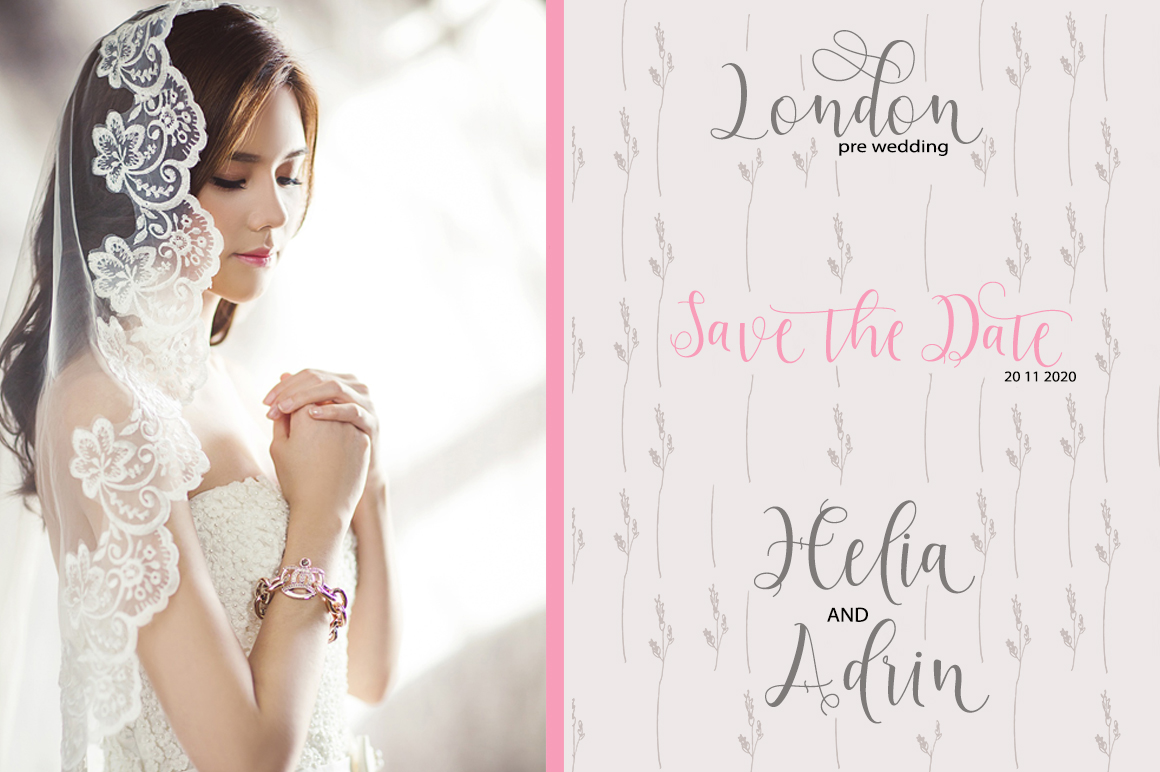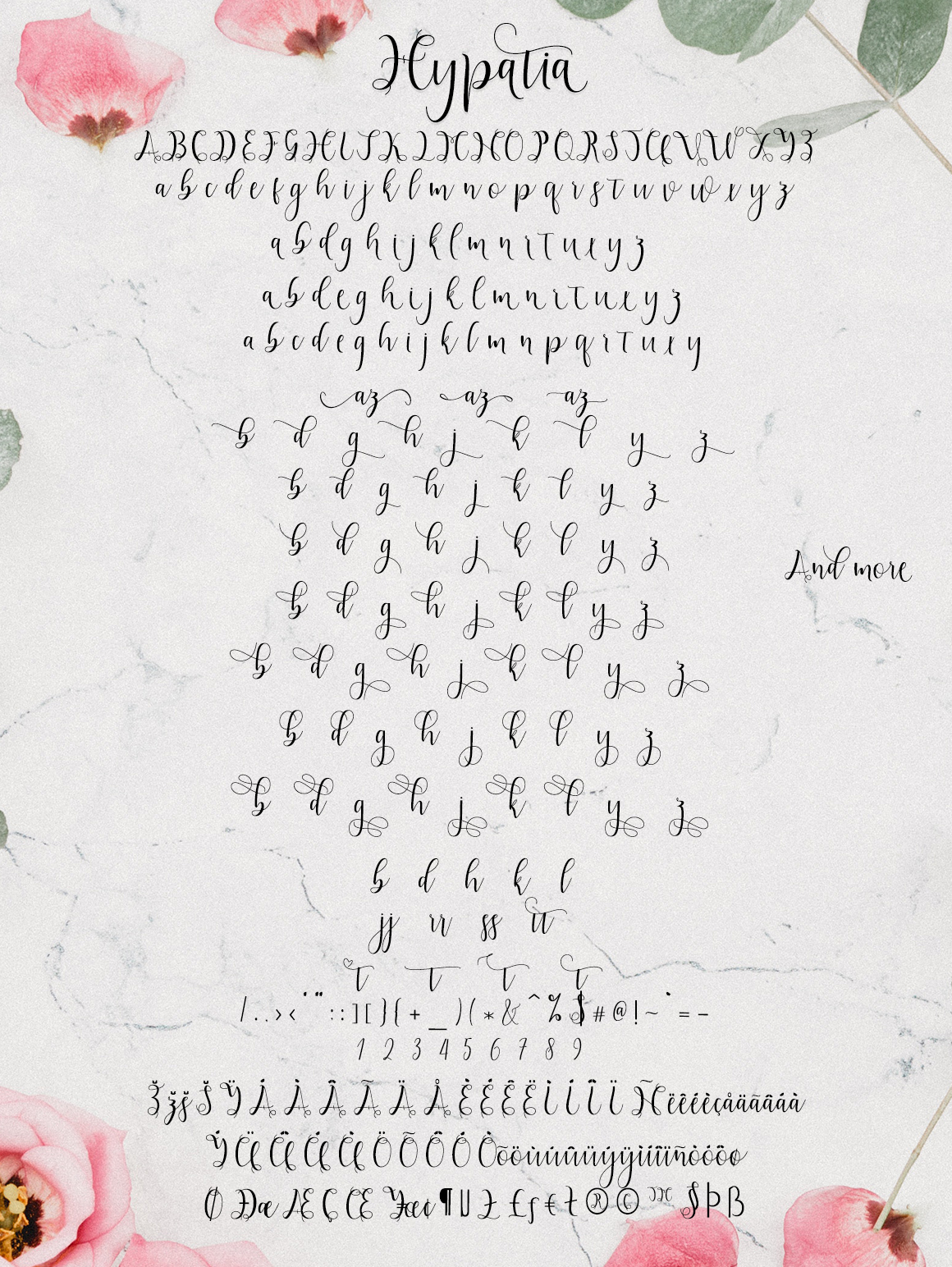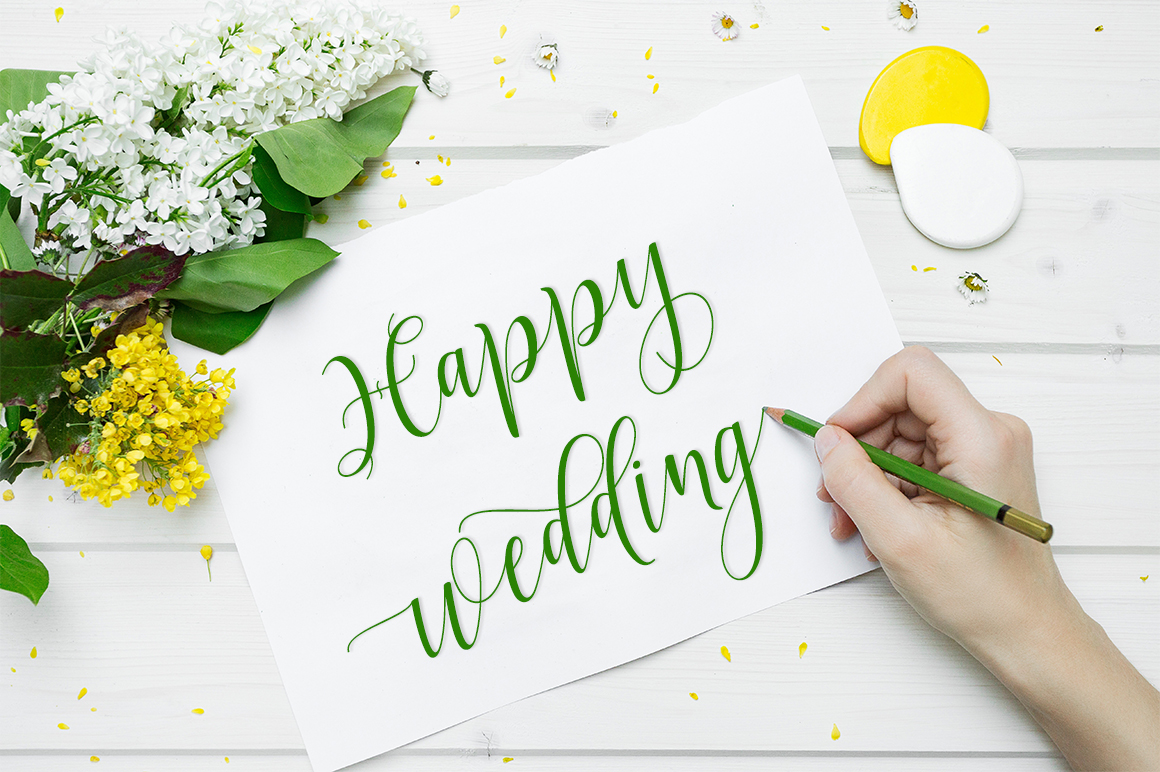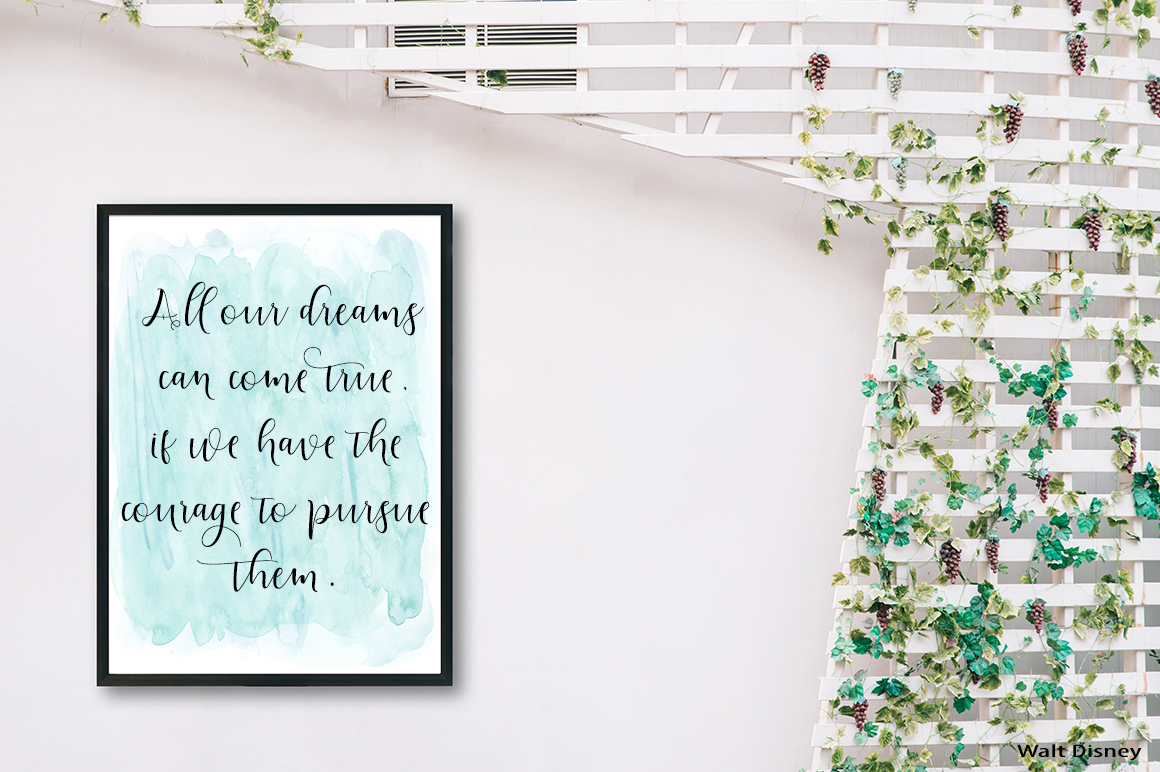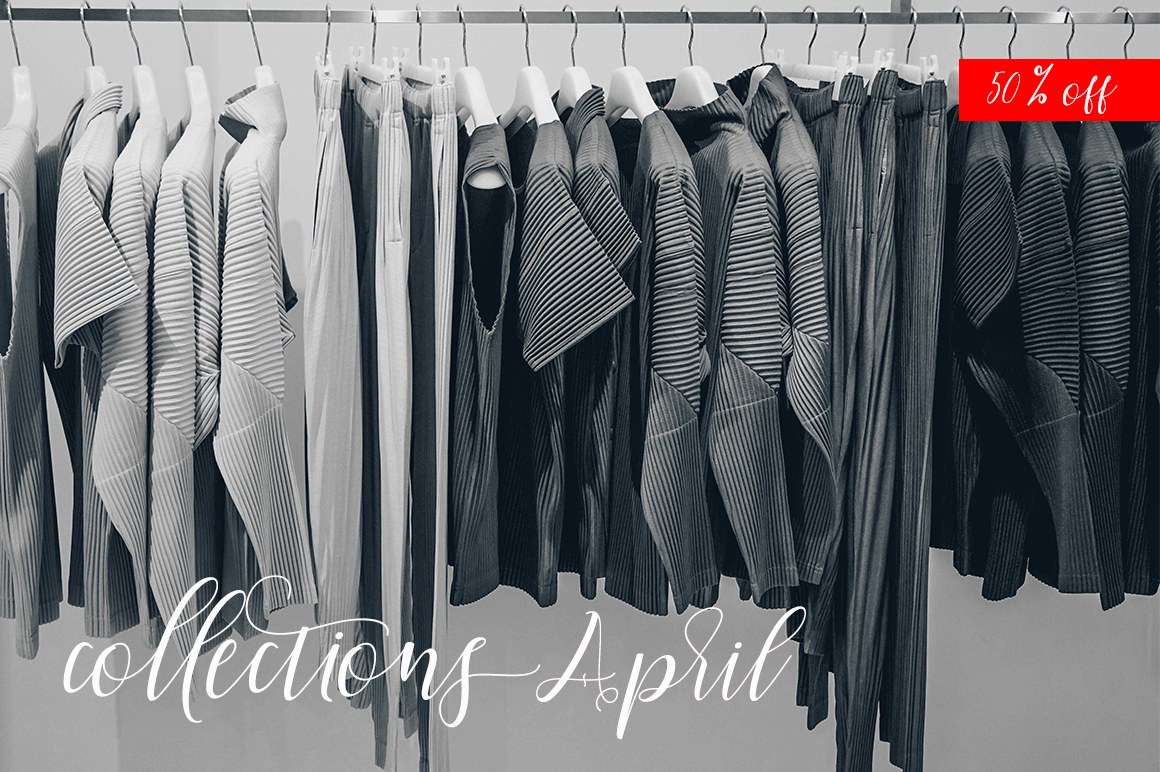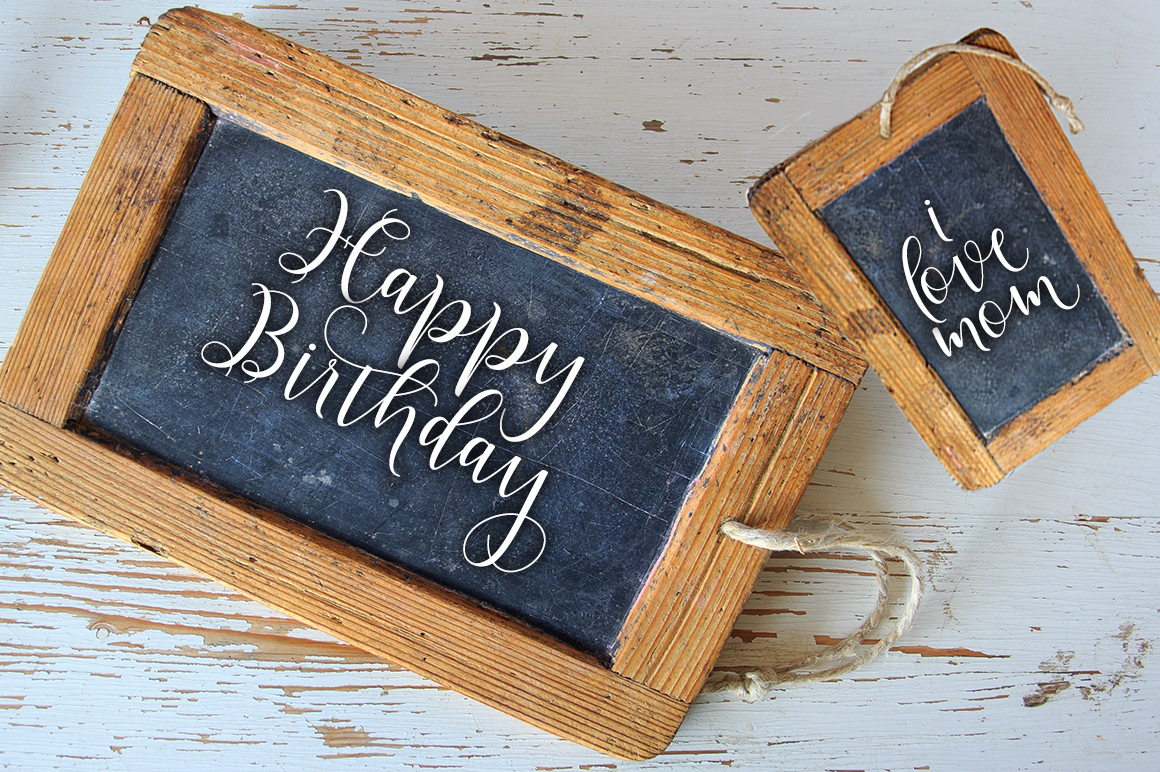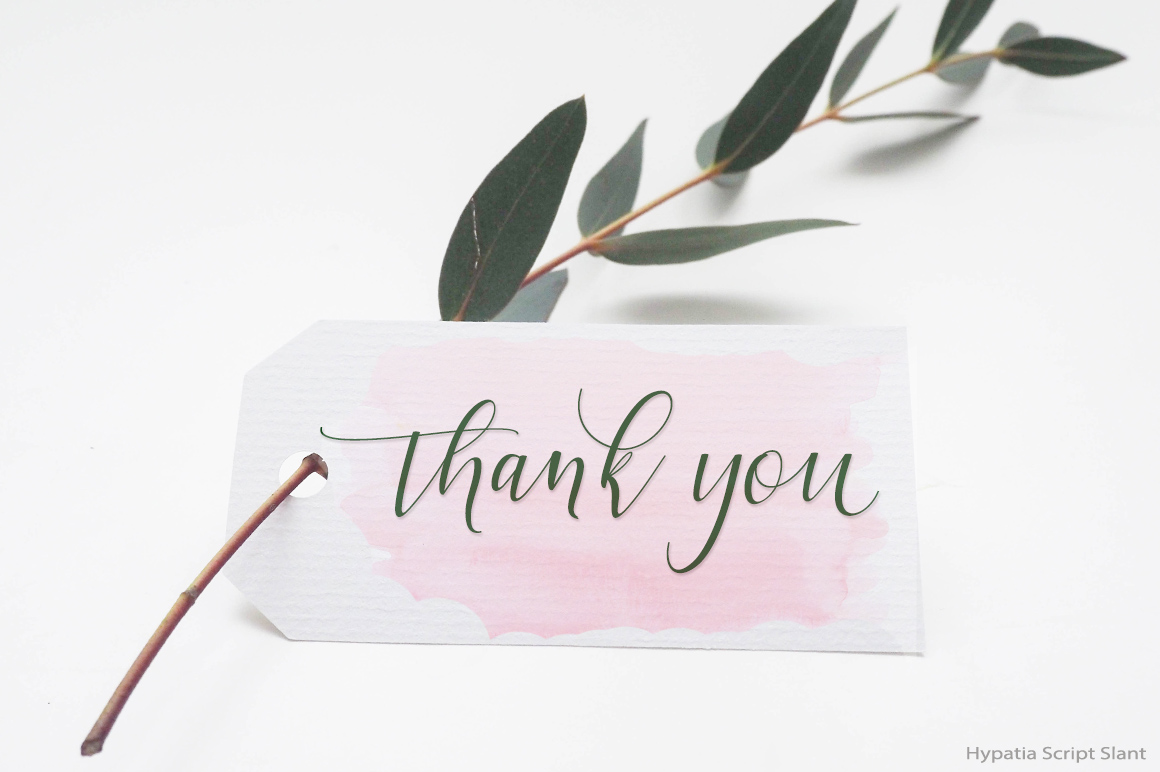
Hypatia Font
About Hypatia Font
Hypatia Script is a modern script font, with every letter having been carefully crafted to make all your typographic endeavors beautiful and stunning. This is a modern calligraphy font with a dancing sensibility and high contrast strokes.